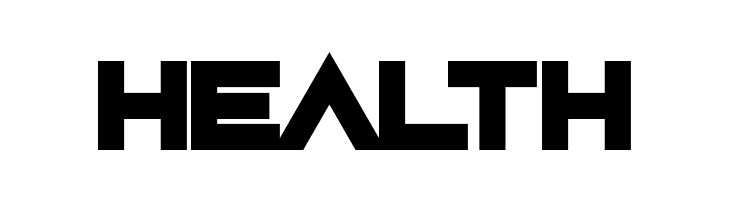
A bold, gothic-style blackletter font with intricate detailing and sharp, angular lines.
A cursive, handwritten-style font with elegant loops and swashes.
An elegant script font with flowing, calligraphic style.
A bold, geometric font with a modern, tech-inspired design.
A flowing, cursive font with elegant, connected letters and a natural handwriting style.
A whimsical and elegant script font with flowing, interconnected letters.
A cursive, handwritten font with elegant, flowing lines and interconnected letters.
A playful, handwritten-style font with rounded, informal letterforms.
A bold, impactful font with strong strokes and sharp edges.
A playful, casual handwritten font with smooth, rounded characters.
A bold, geometric font with sharp angles and a modern aesthetic.
A playful, bold, hand-drawn font with interconnected characters.
A cursive, flowing script with elegant, connected characters.
A bold, cursive font with smooth, flowing lines and a handwritten appearance.
A whimsical and decorative font with flowing, interconnected strokes.
A playful, handwritten-style font with smooth, flowing curves and a casual feel.
A bold, playful font with wavy, rounded characters.
A bold, italic, and playful font with a handwritten feel.
A playful, bold, and whimsical font with looped and curved elements.
A bold, angular font with a modern and decorative style.
A bold, dynamic italic font with sharp, angular strokes and a modern aesthetic.
A bold, italicized font with a dynamic and energetic style.
A bold, rounded font with a playful and modern style.
A bold, cursive font with a playful, handwritten style.
A futuristic hollow font with a geometric and modern style.
A bold, italicized font with a modern, dynamic style.
A bold, modern font with a geometric and futuristic design.
A modern, italic font with a futuristic and dynamic design.
A modern, geometric font with clean lines and rounded edges.
A modern, angular font with a futuristic and dynamic design.
A futuristic, hollow, geometric font with sharp, angular lines.
A modern, hollow, and geometric font with inverse strokes and angular design.
A bold, geometric font with angular and modern design elements.
A futuristic and geometric font with rounded edges and consistent line thickness.
A futuristic and abstract font with bold, smooth curves and geometric shapes.